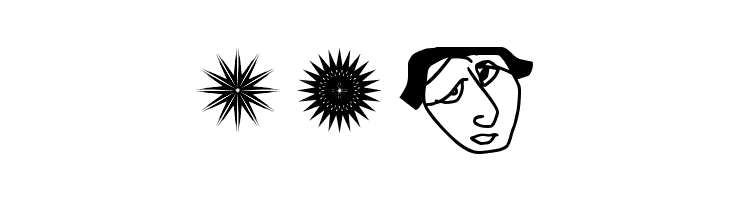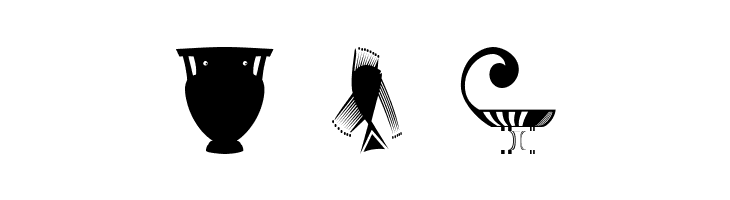
( Fonts by Astigmatic One Eye Typographic Institute - Brian J. Bonislawsky - astigmatic.com )
A decorative symbol and shape dingbat set.
A weather-themed decorative icon set with playful, illustrative symbols.
A display font using vehicle silhouettes as characters.
A decorative font with African-inspired symbols and illustrations.
Illustrative font featuring drama and theater motifs.
Whimsical weather-themed dingbat illustrations.
( Fonts by pheist.net - Stefanie Koerner )
A playful dingbat font with eclectic hand-drawn illustrations.
( Fonts by Klaus Johansen - www.listemageren.dK )
A playful set of sci-fi and fandom-themed dingbats with a cartoonish, hand-drawn style.
Highly illustrative font composed of religious and spiritual icon symbols.
Iconic font with legal and governmental symbols.
( Fonts by Blue Vinyl - Jess Latham - www.bvfonts.com )
A decorative symbol font featuring stars, hearts, and arrows with a playful style.
A religious-themed dingbat font with Christian illustrations.
Ornamental font with detailed oriental-themed illustrations.
Ornamental dingbat font with Greek art motifs and classical illustrations.
A decorative dingbat font with conspiracy and secret society iconography.